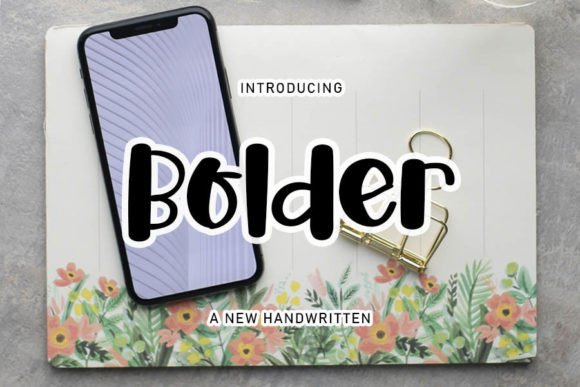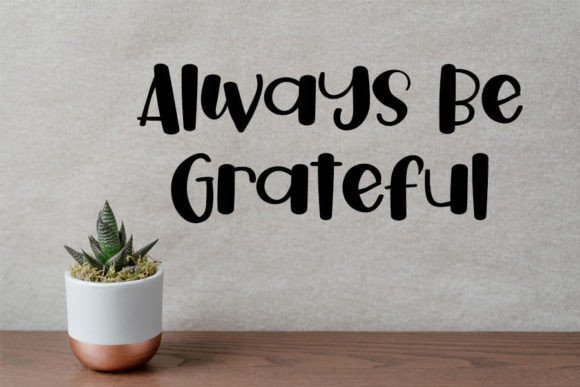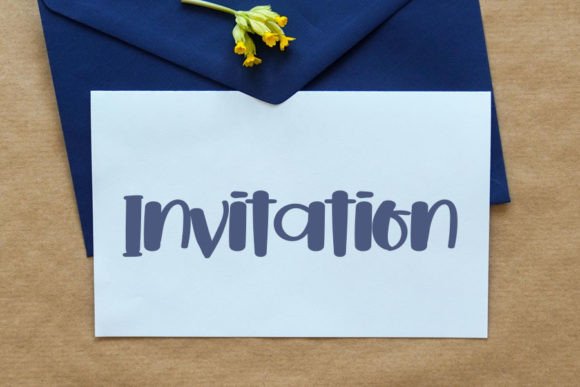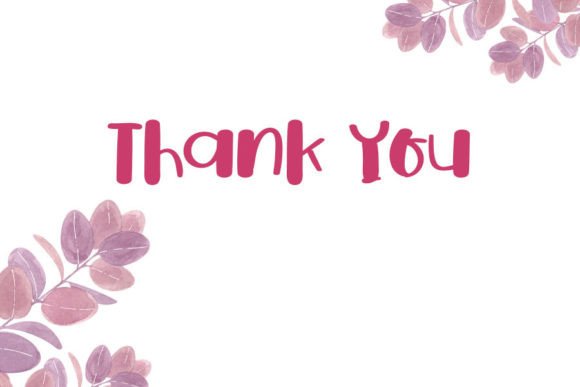
Bolder Font
Add a bold and professional look with the Bolder font. This fancy handwritten script is carefully and neatly designed to make your creations stand out. Whether you need a strong headline or an eye-catching logo, this font delivers with confidence.
The Bolder font is perfect for crafts, apparel designs, merchandise, posters, and branding projects. Its thick strokes and clean style add assertiveness and appeal to any design.
Each character in the Bolder font is crafted with precision. The result is a typeface that balances style and readability. It works well for logos, headlines, quotes, and decorative text elements.
This font remains readable at various sizes. Whether you want to create bold titles or subtle accents, the Bolder font adapts perfectly. Its versatility makes it suitable for many creative projects.
Using this font will give your designs a strong and professional presence. It adds character and makes your work memorable. If you want your projects to be attractive and confident, the Bolderfont is an excellent choice.
In summary, the Bolderfont is versatile and stylish. From headlines to merch designs, it brings boldness and flair. Download it today and elevate your creative projects with a powerful handwritten script.